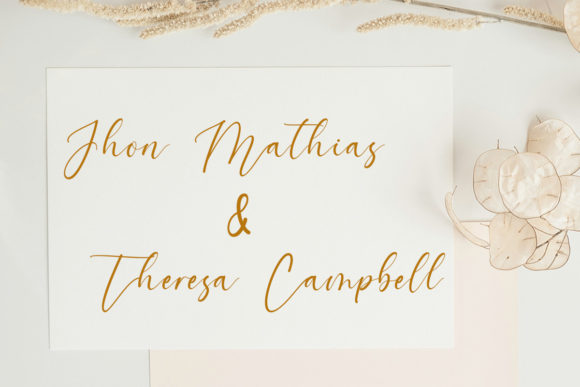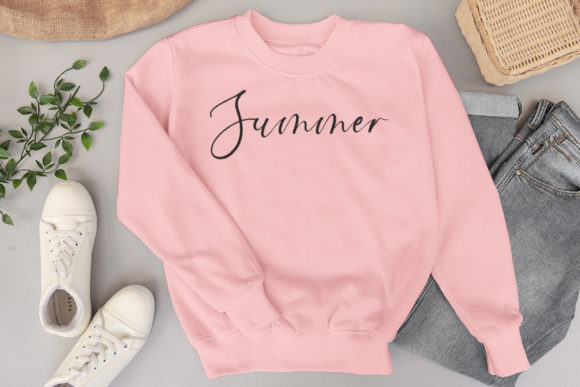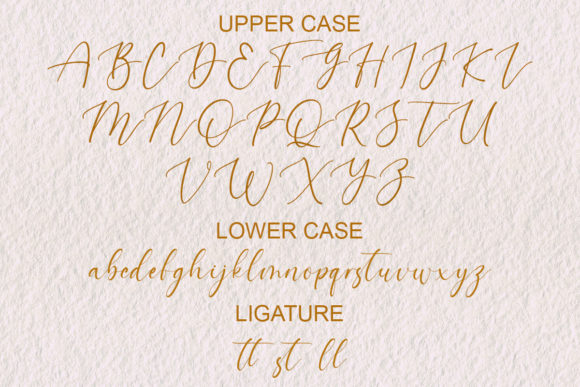
Discover the Elegance of Burniston Font: Elevate Your Designs with Delicate Handwritten Style
Are you a designer or crafter looking for a font that can add a touch of elegance and sophistication to your creative projects? Look no further than the Burniston font. This beautiful, delicate, and flowing handwritten font is perfect for bringing a sense of refinement and poise to your designs. With its well-balanced characters and versatile style, Burniston font is an excellent choice for a wide range of design applications.
The Characteristics of Burniston Font
Burniston font is a true gem in the world of typography. Its delicate and elegant appearance makes it an ideal choice for designers who want to add a touch of sophistication to their work. The font features beautiful and well-balanced characters that are carefully crafted to create a sense of flow and harmony. Whether you’re working on a logo, a poster, or a digital project, Burniston font is sure to impress.
One of the standout features of Burniston font is its versatility. It can be used in a wide range of design applications, from elegant wedding invitations to modern branding projects. The font’s flowing script style gives it a sense of movement and energy, making it perfect for designs that require a touch of dynamism.
Why Choose Burniston Font?
So, why should you choose Burniston font for your next design project? Here are just a few reasons:
- Elegance and sophistication: Burniston font adds a touch of elegance and sophistication to any design project.
- Versatility: The font can be used in a wide range of design applications, from logos and posters to digital projects and more.
- Well-balanced characters: The font features well-balanced characters that create a sense of flow and harmony.
- Easy to read: Despite its delicate appearance, Burniston font is easy to read, making it perfect for body text and other applications where legibility is important.
How to Use Burniston Font in Your Designs
Using Burniston font in your designs is easy. Here are a few tips to get you started:
- Pair it with bold fonts: Burniston font pairs perfectly with bold fonts, creating a beautiful contrast that adds visual interest to your designs.
- Use it for headings and titles: The font’s elegant appearance makes it perfect for headings and titles, adding a touch of sophistication to your designs.
- Experiment with colors: Burniston font looks great in a range of colors, from elegant metallics to bold brights.
If you’re a designer or crafter looking to get the most out of Burniston font, here are a few tips to keep in mind:
- Pay attention to spacing: Make sure to adjust the spacing between letters and words to create a sense of flow and harmony.
- Use it in combination with other fonts: Don’t be afraid to experiment with pairing Burniston font with other fonts to create a unique and interesting look.
- Consider the tone of your design: Burniston font is perfect for designs that require a touch of elegance and sophistication. Consider the tone of your design and use the font accordingly.
| Font Name | Burniston Font |
| Author | Letterstype |
In conclusion, Burniston font is a beautiful and elegant handwritten font that is perfect for designers and crafters looking to add a touch of sophistication to their creative projects. With its well-balanced characters, flowing script style, and versatility, Burniston font is an excellent choice for a wide range of design applications. Whether you’re working on a logo, a poster, or a digital project, Burniston font is sure to impress.